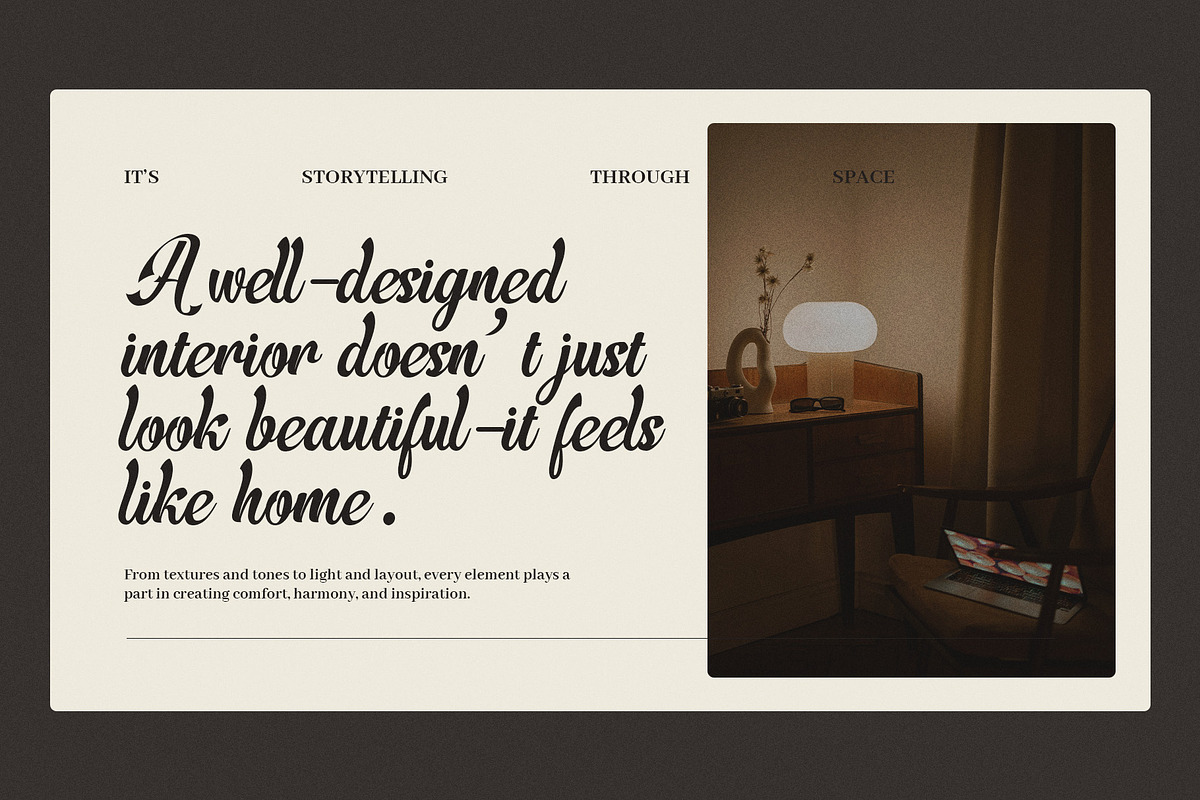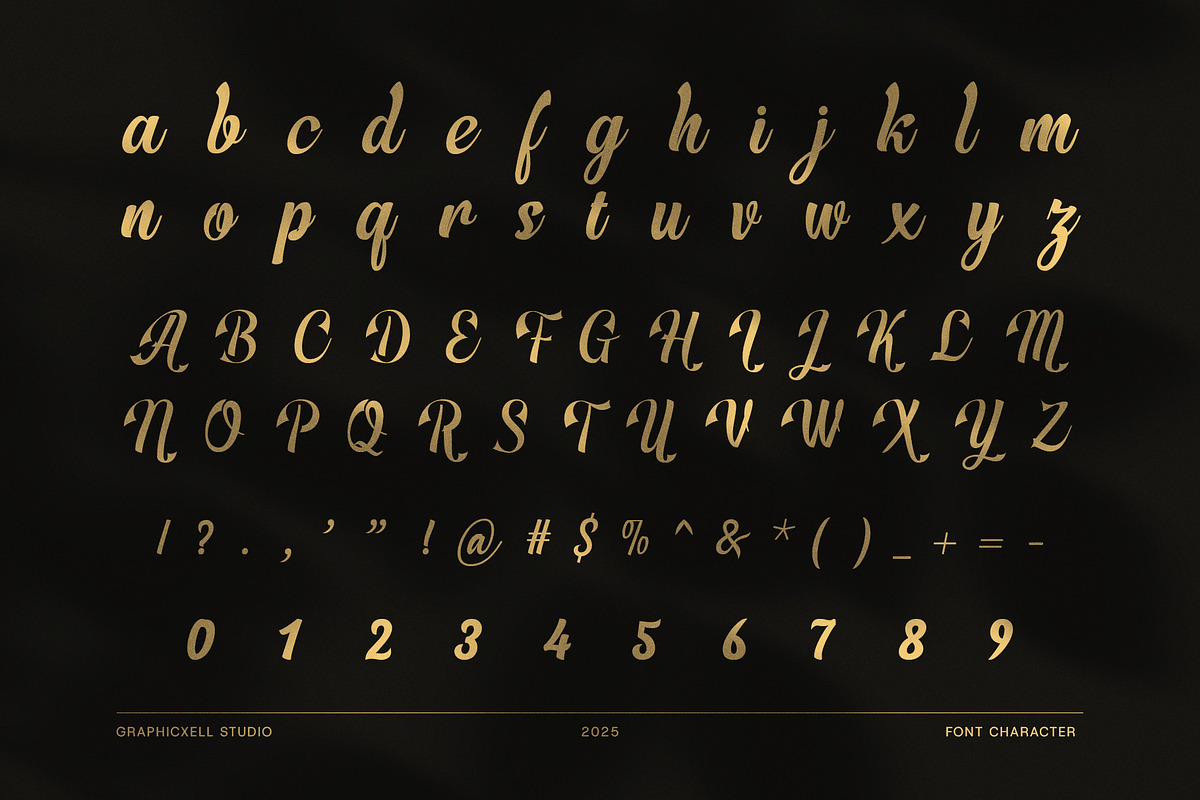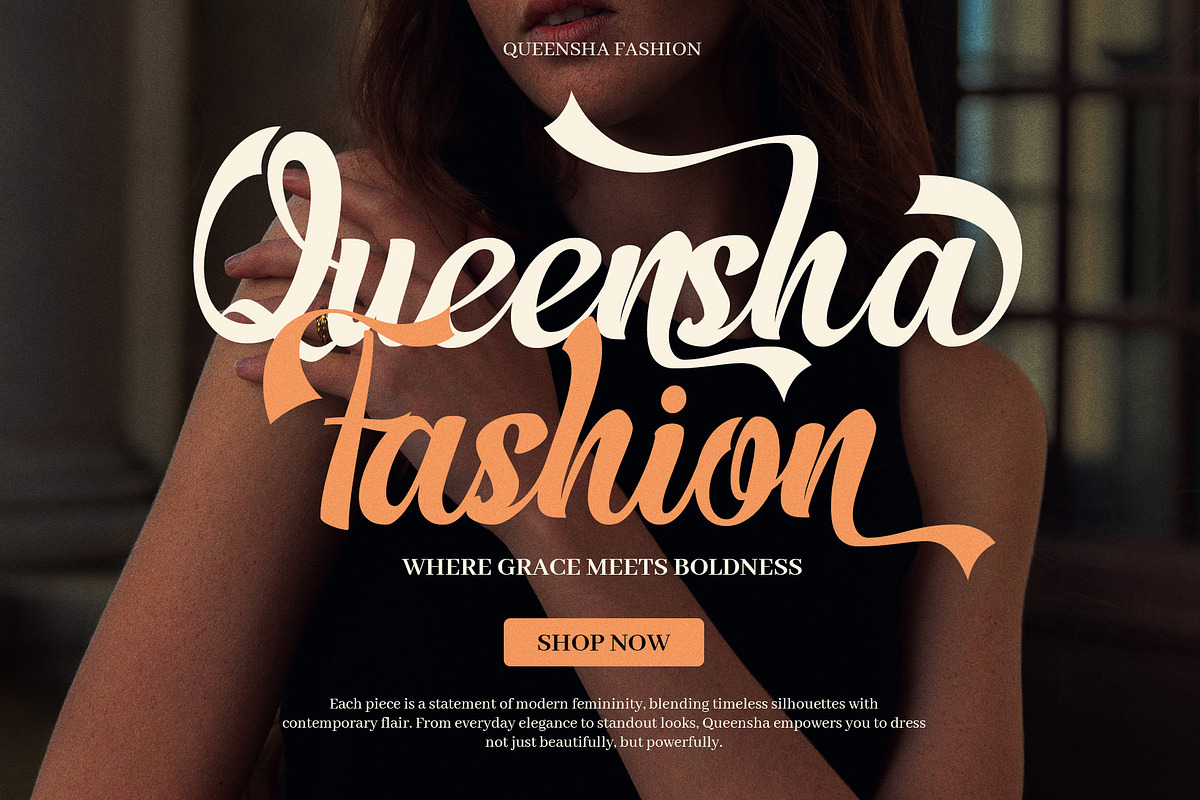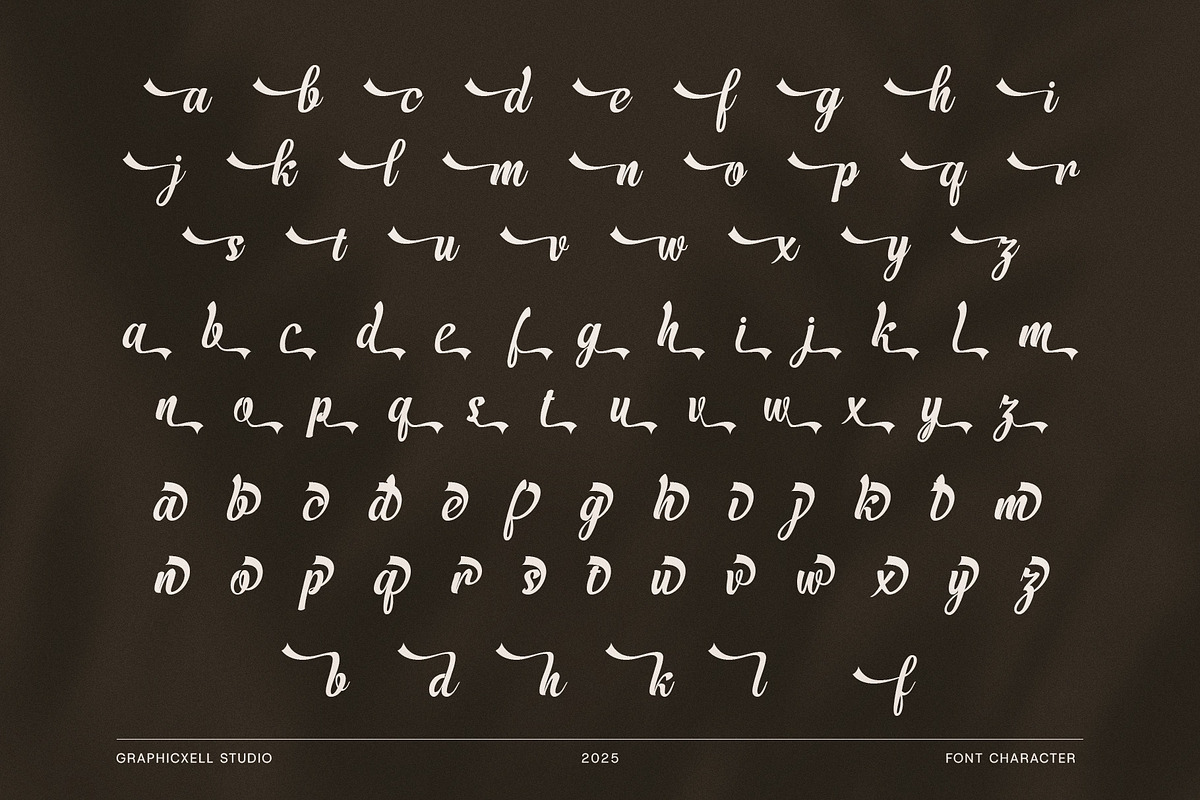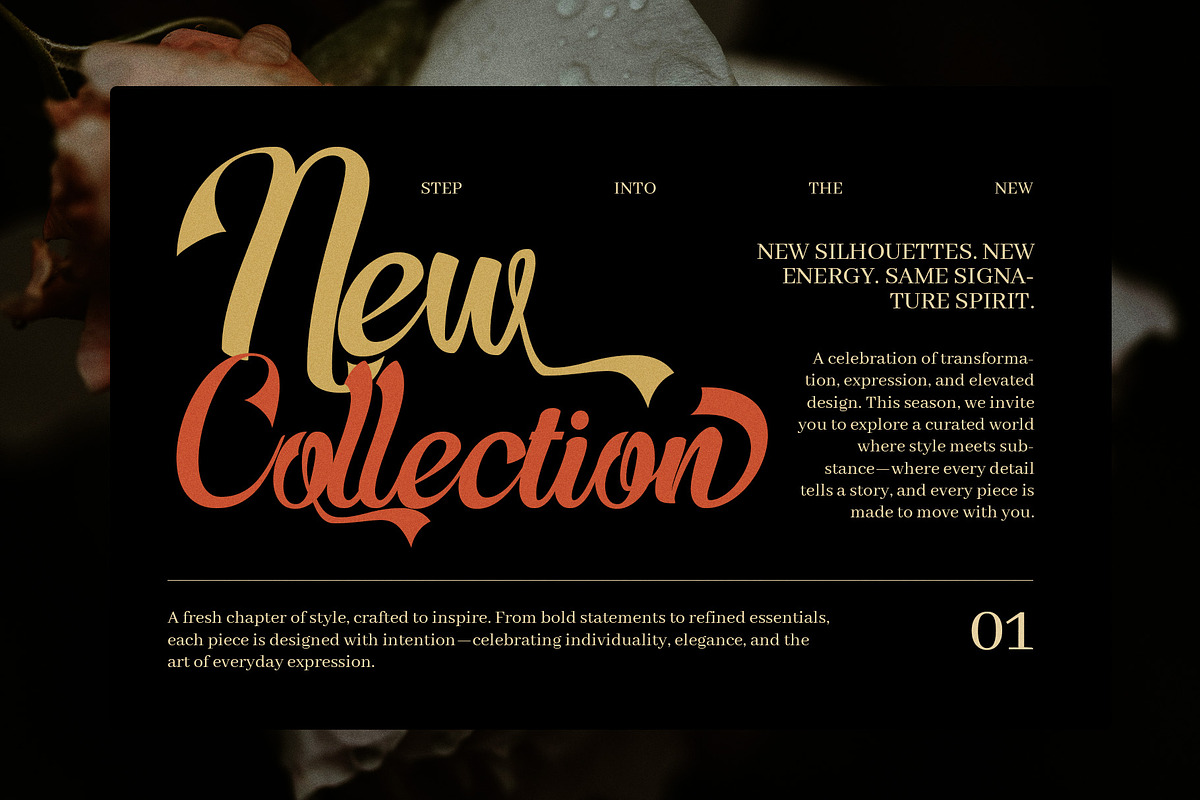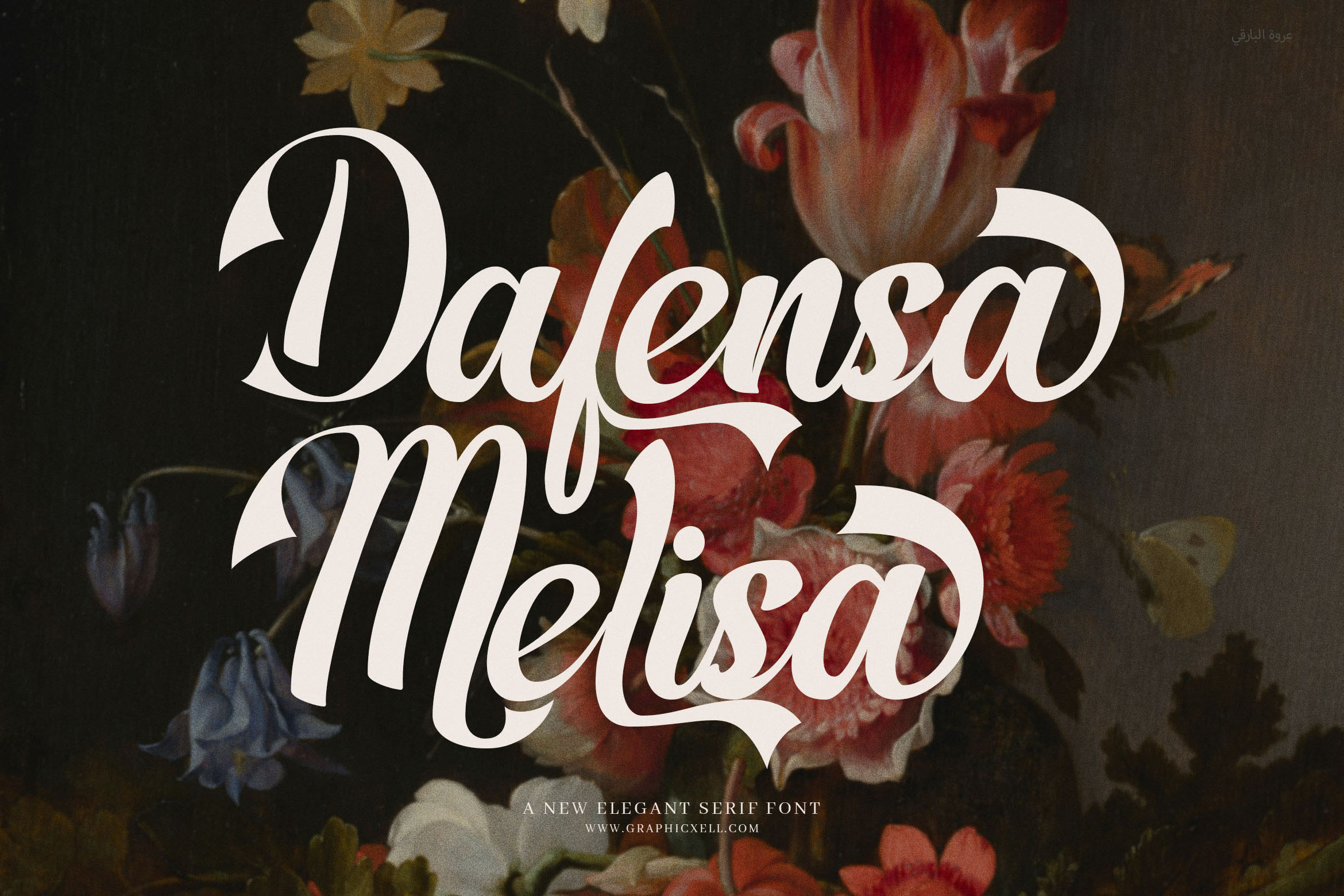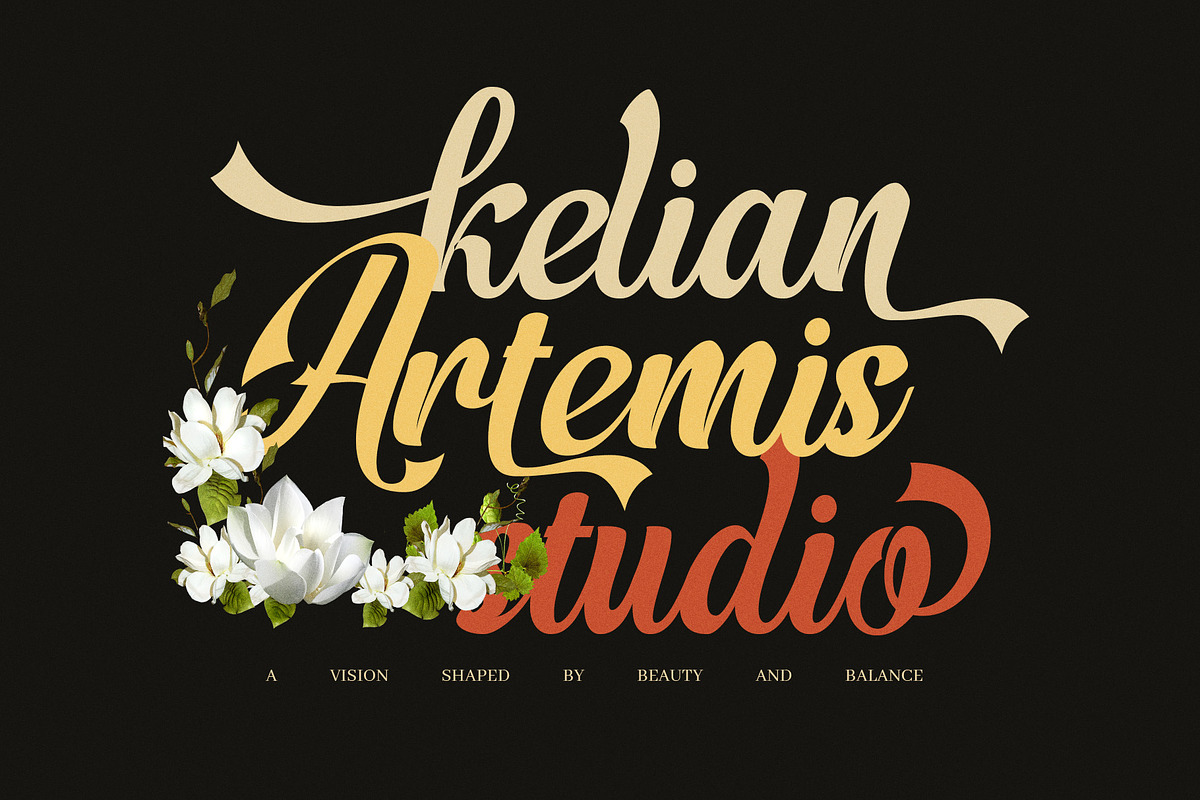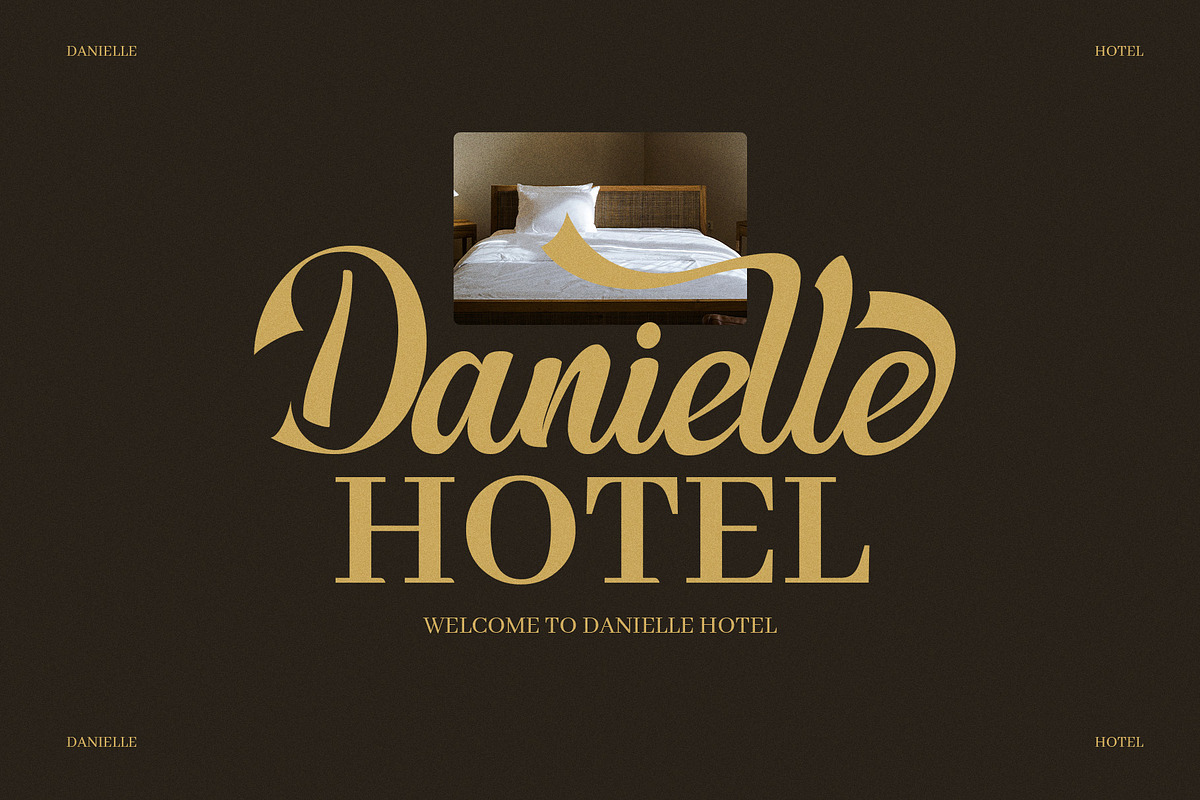
Dafensa Melisa Script Font
Elevate your designs with the Dafensa Melisa Script Font, an elegant and refined script font crafted to bring beauty and sophistication to every project. This font boasts smooth, flowing strokes combined with a variety of stylish alternate calligraphy characters. As a result, you can easily create unique and eye-catching designs that stand out.
Whether you are designing branding materials, logos, wedding invitations, or business cards, Dafensa Melisa adds a classy and timeless feel. Additionally, it works wonderfully for magazine layouts, posters, album covers, websites, boutiques, and advertisements. Thanks to its versatile and graceful style, this font suits both digital and print designs perfectly.
Moreover, the font is carefully designed for clarity and elegance, making it an excellent choice for creatives seeking a high-end look without compromising readability. Its diverse alternate characters allow you to customize your typography for a truly personal touch.
Key features:
Elegant and classy script with smooth calligraphy
Multiple alternates for varied and creative designs
Ideal for weddings, branding, logos, invitations, and more
Suitable for print and digital media such as magazines, posters, and websites
With Dafensa Melisa Script Font, you gain a premium font that enhances your work with elegance and charm. Make your projects unforgettable by adding a graceful and artistic font that speaks quality and style.